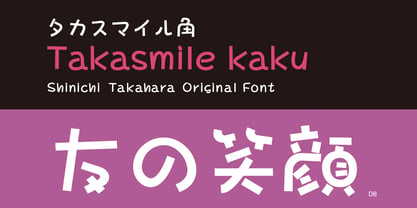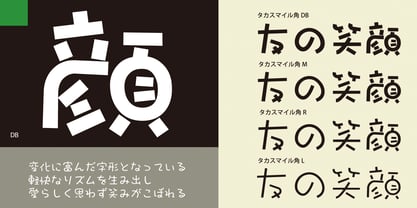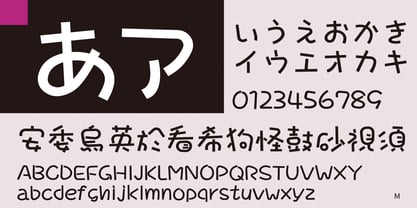
Takasmile-kaku
by Taka Design Production
The Takasmile-kaku Font Family was designed by and published by Taka Design Production. Takasmile-kaku contains 4 styles and family package options. More about this family
The combination of straight lines, rounded corners, and the roundness of the “enclosure” create a varied character form. It is a lovely typeface that makes you smile.